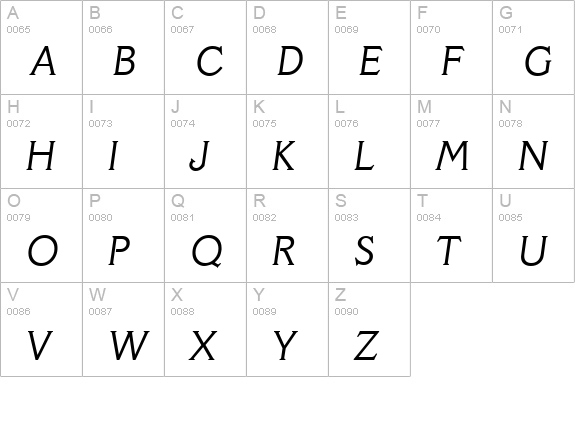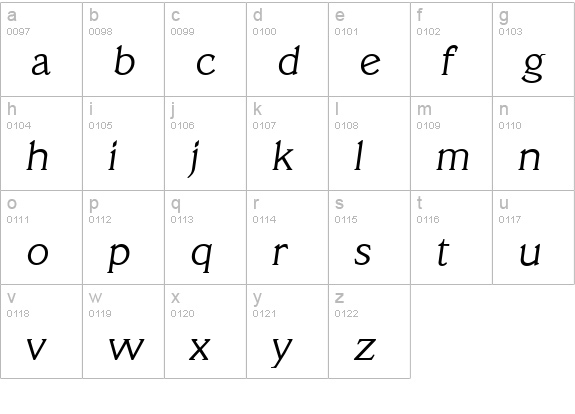
VeracruzSerial-Light-Italic is a refined, elegant, italic variant in the VeracruzSerial typeface family \xE2\x80\x94 well suited to elegant body text, refined sub-headings, and luxury branding.
VeracruzSerial-Light-Italic is a modern and elegant font that exudes sophistication and style. Its sleek and slender design is perfect for adding a touch of class to any project. The italicized style adds a sense of movement and dynamism, making it ideal for conveying a sense of energy and creativity. This font is available for free download at FontsMarket.com, making it easily accessible to anyone looking to enhance their designs with a touch of elegance. Whether you're working on a digital project or printed materials, VeracruzSerial-Light-Italic is sure to make a lasting impression with its unique and eye-catching appearance. Let this font elevate your designs and bring them to the next level of sophistication.